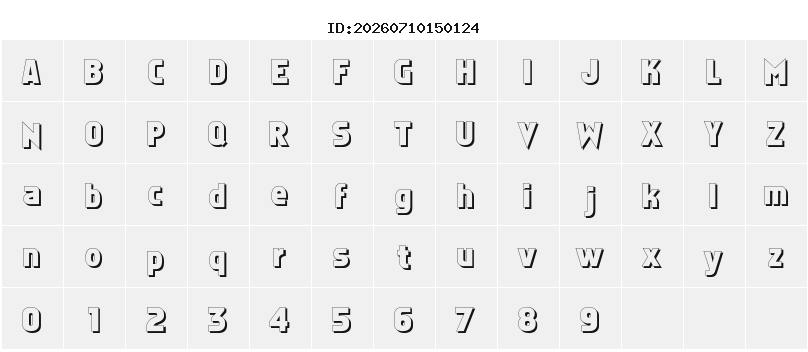
Faktos Shadow Preview
• Font Name: Faktos Shadow
• Full Font Name: Faktos Shadow
About Faktos Shadow.ttf
Faktos Shadow.ttf is a modern, elegant sans-serif font designed for ultimate readability and visual harmony. Perfect for branding, headlines, web design, and print materials.